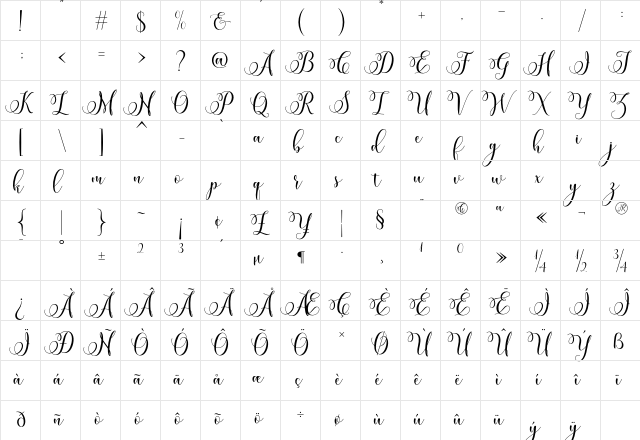
Miracle Script Regular
Design Context for Miracle Script Typeface
Miracle Script brings a calligraphic fluidity to the page — its connecting strokes and expressive curves give it an unmistakably human quality.
Font Pairing: Combine Miracle Script with a simple geometric sans for maximum contrast — the tension between flowing curves and clean structure is a classic typographic pairing.
Pro Tip: Use Miracle Script for short runs of text — names, titles, or taglines. Extended body copy in script faces tires the eye quickly.